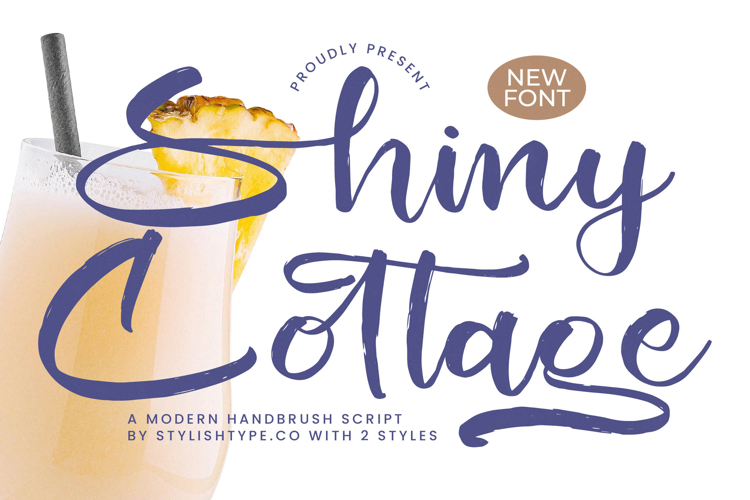
Shiny Cottage - Modern Handbrush Script
Unleash your design projects with the vibrant, expressive energy of Shiny Cottage - Modern Handbrush Script. This typeface masterfully blends the spontaneity of authentic hand-lettering with the polished readability of a modern script. The dramatic, high-contrast strokes and natural, textured edges deliver an immediate sense of warmth and handcrafted quality, instantly elevating any visual message for maximum impact.